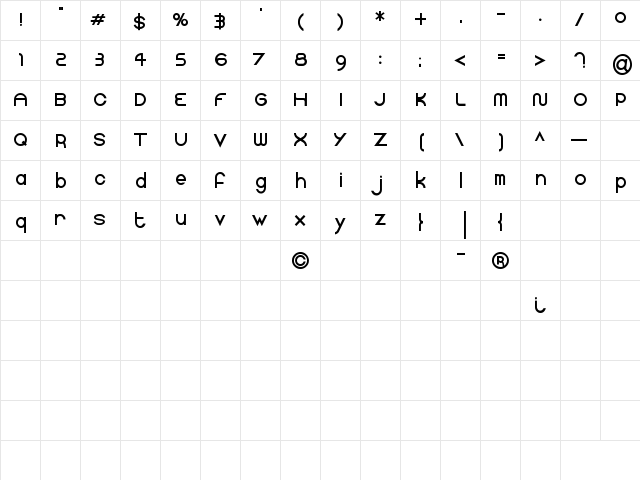
faucet Regular
| Designer | Kirk Shelton |
Design Context for faucet Typeface
faucet is a composed and adaptable typeface that performs quietly and consistently across a wide range of design contexts.